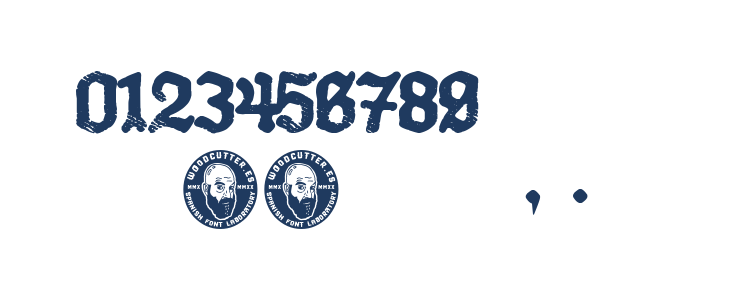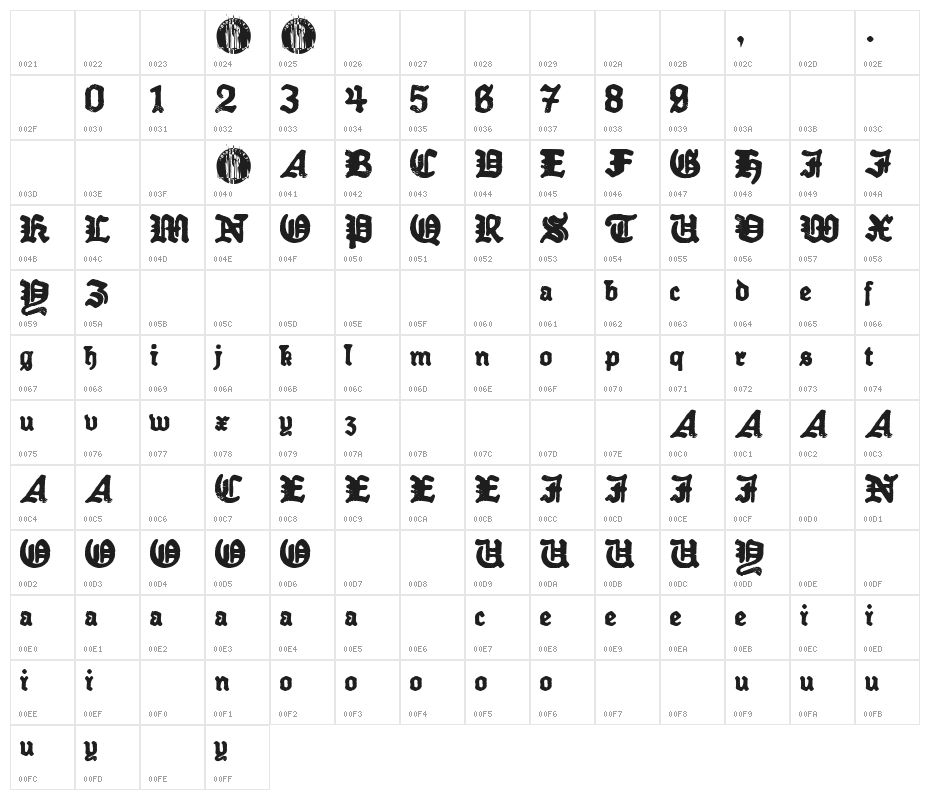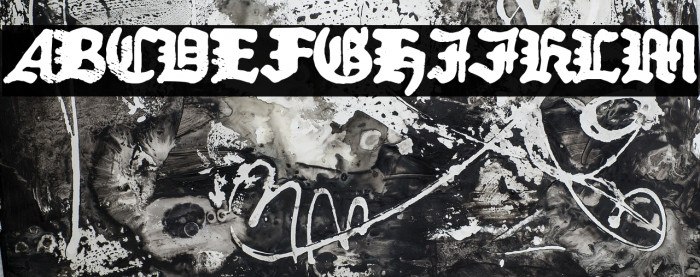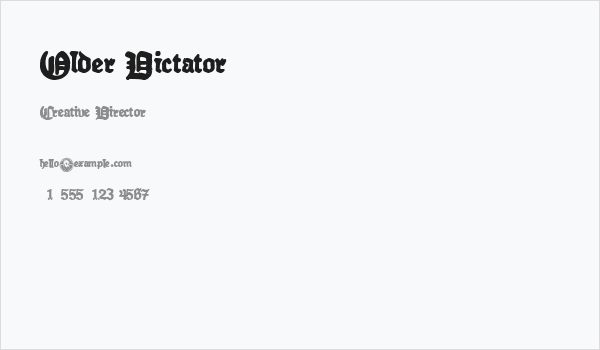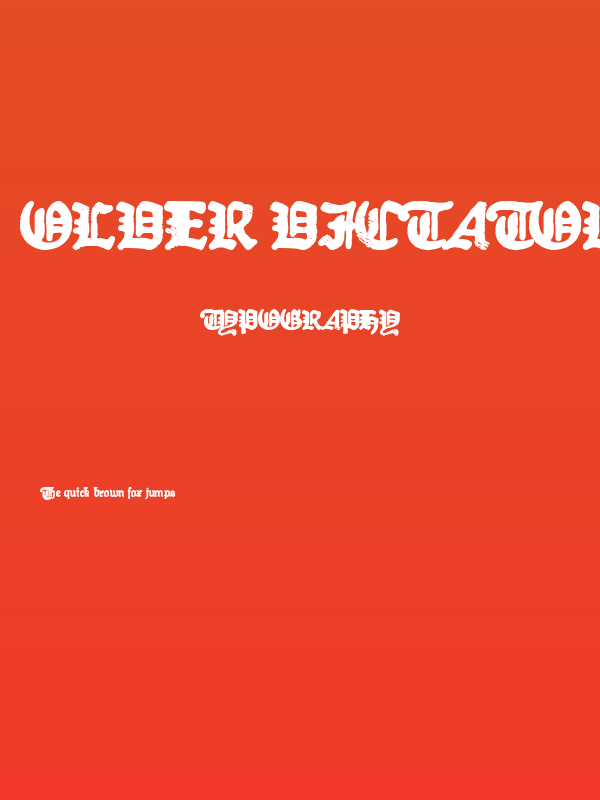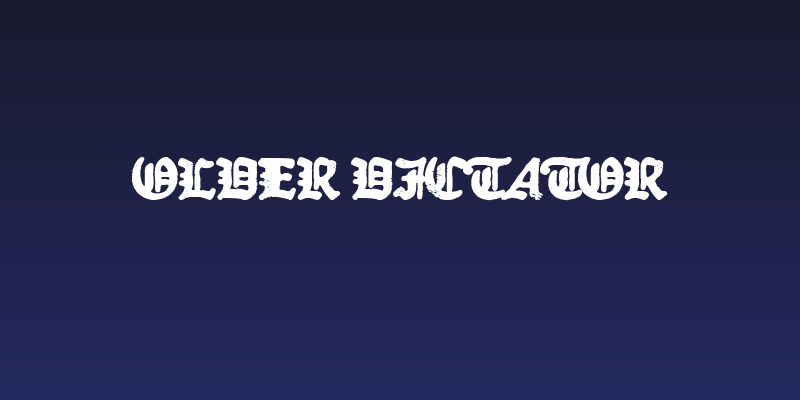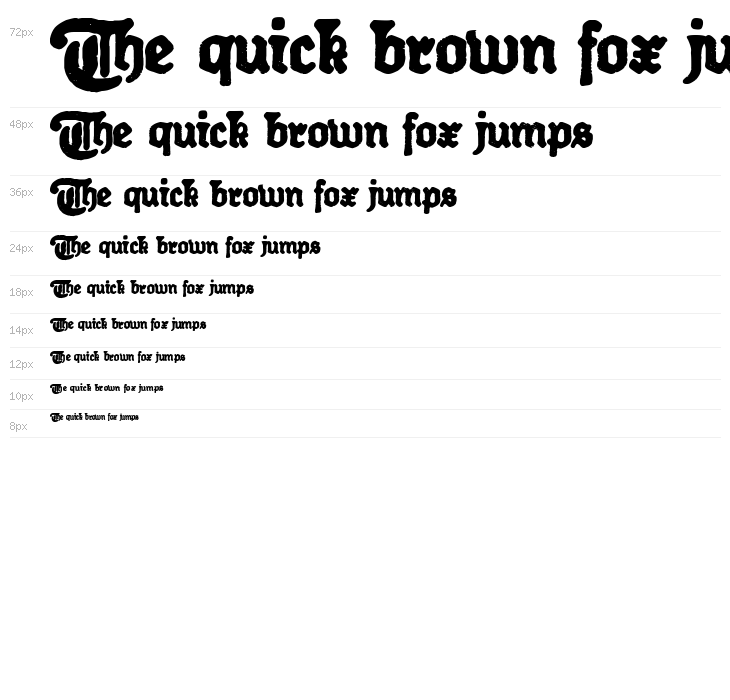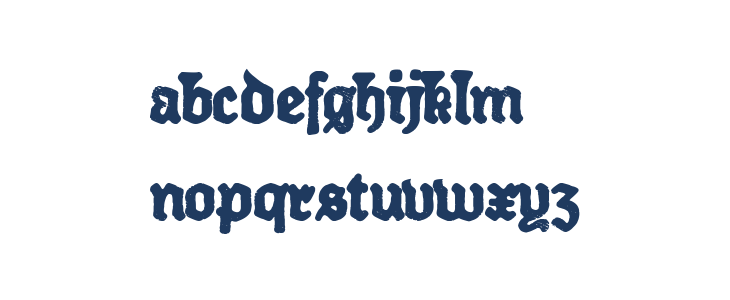
Older Dictator Font
Older Dictator Description
This font features a bold and distressed Blackletter style, characterized by its dramatic and ornate letterforms. The uppercase letters are particularly elaborate, with sharp angles and intricate details that evoke a sense of historical gravitas. The lowercase letters maintain the same level of detail, creating a cohesive and visually striking appearance. The numerals are equally bold, with a rugged texture that adds to the overall vintage feel. This font is designed to stand out, making it ideal for projects that require a strong visual impact.
| Use Case | Headlines, Logos, Decorative text |
| Proposed Projects | Ideal for vintage-themed posters, album covers, branding for historical or gothic-themed events, and decorative headlines. |